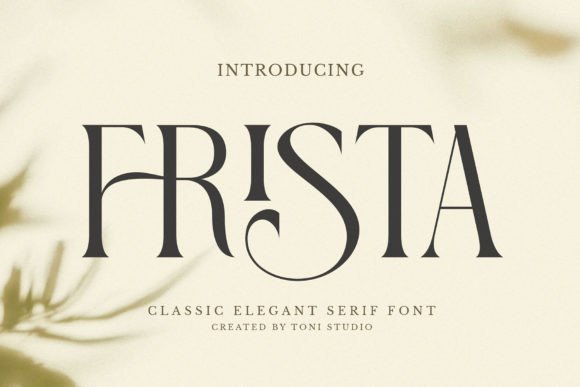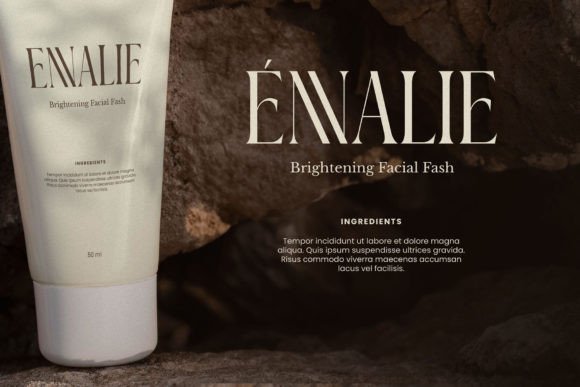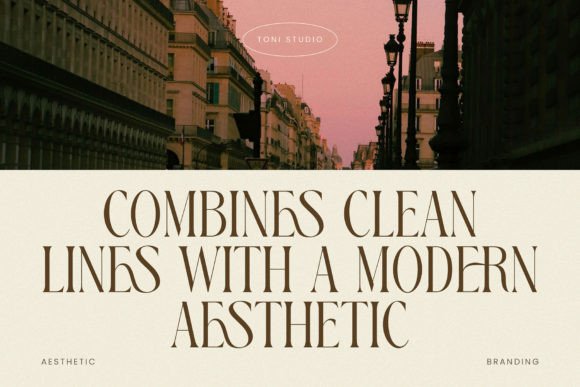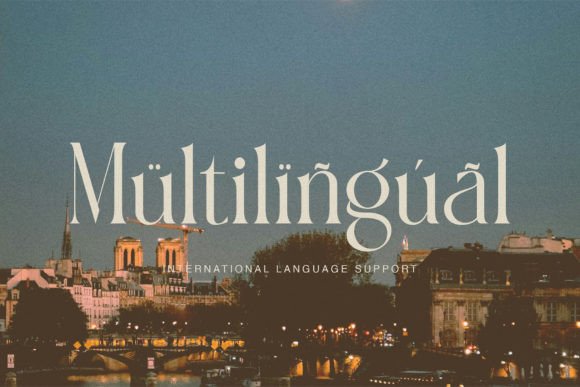
Frista Font: Elegant Serif for Luxury Branding & Logo Design
About the Frista Font
Discover the charm of Frista Font. This font is a perfect blend of modern aesthetics and classic appeal. Frista is a modern font that conveys a sense of elegance and class, offering beautiful typographic harmony for a variety of design projects. This font is perfect for elegant & luxury logos, classy editorial designs, women’s magazines, fashion brands, cosmetic brands, fashion promotions, modern advertising designs, invitation cards, art quotes, home deco, book titles/covers, special events, tote bags, and more.
Frista’s elegant demeanor makes it ideal for headlines, short-form text, and branding applications where sophistication is key. It excels in logo design, packaging for luxury goods, and stylish print advertisements. However, its refined strokes are less suited for body text or UI elements where readability over long passages is paramount.
Consider pairing Frista with a clean sans-serif like Lato for a balanced contrast, or a warmer serif such as Playfair Display for a more traditional feel. For a touch of playful modernity, a geometric sans-serif like Montserrat could work well.
Frista projects a sophisticated and refined personality, best suited for brands aiming for a premium, timeless image. Avoid using it in contexts requiring a highly approachable or informal tone.
Frista Font Usage Examples
Frista Font Example